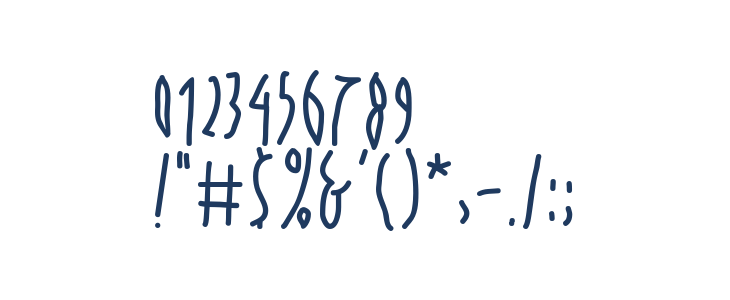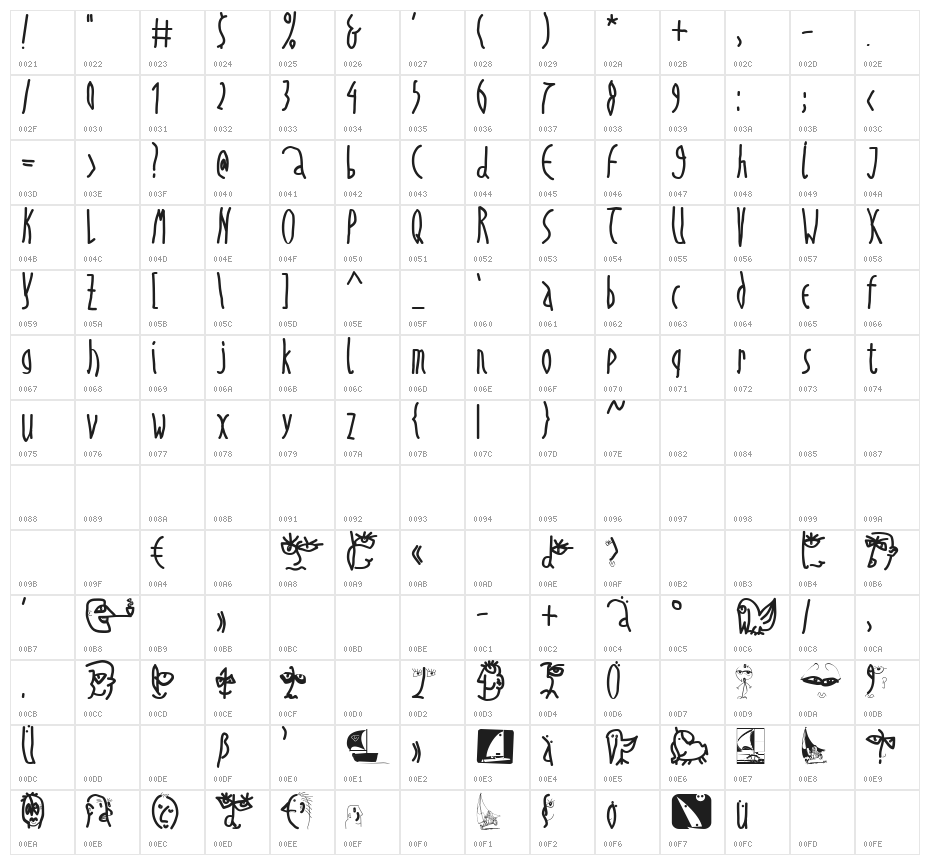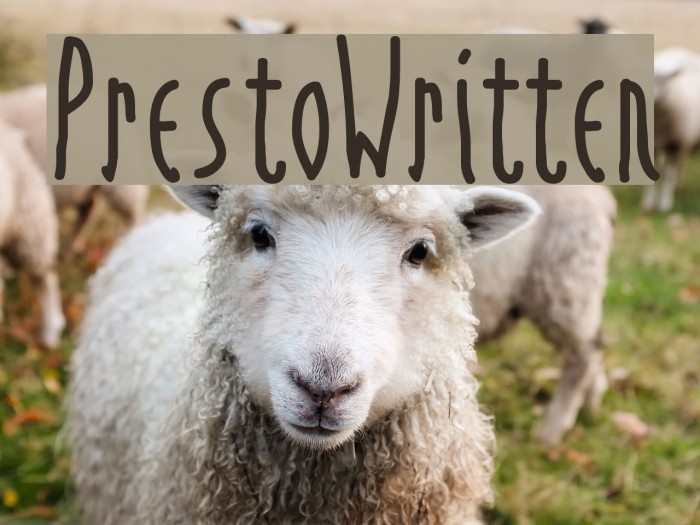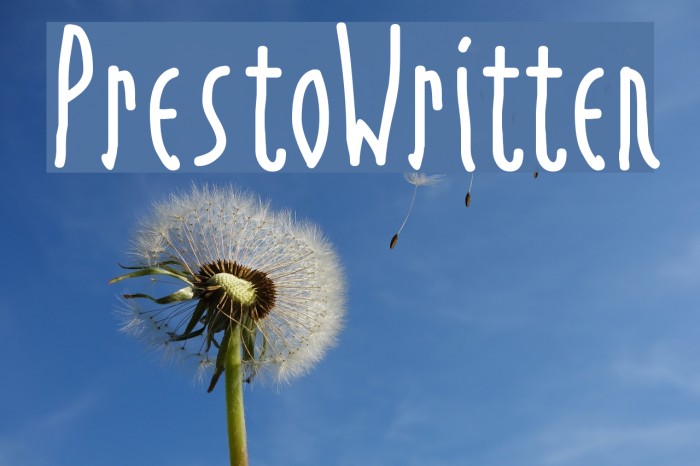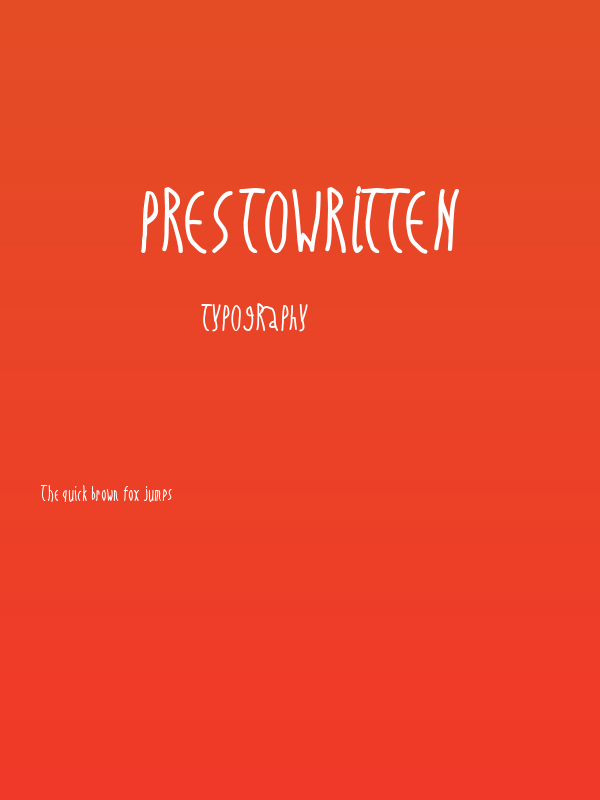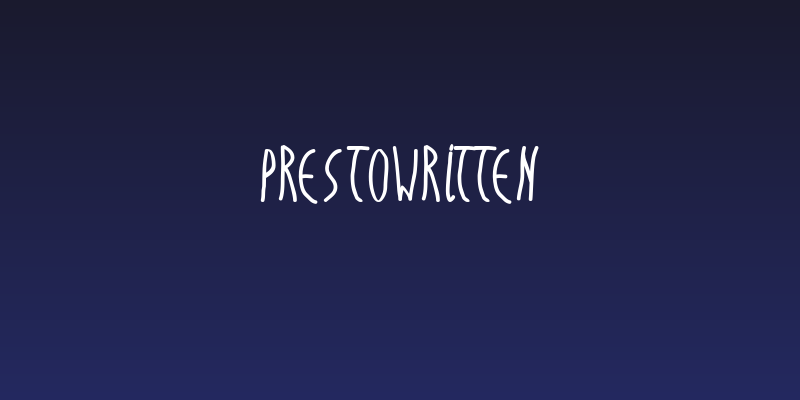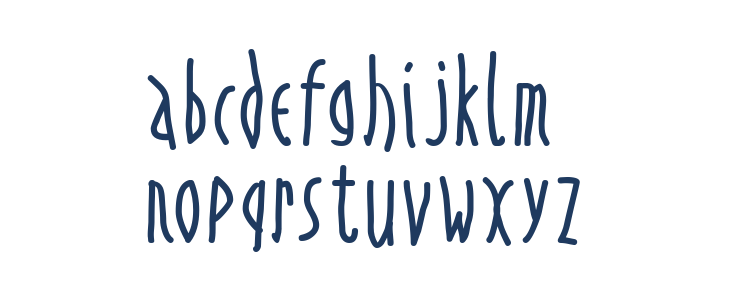
PrestoWritten Font
PrestoWritten Description
This font features a playful and whimsical handwritten style, characterized by its tall, narrow letters and uneven stroke widths. The characters have a casual, informal appearance, with a slight slant that adds to their dynamic feel. The uppercase and lowercase letters maintain a consistent height, creating a cohesive look across the alphabet. Numbers and special characters follow the same style, ensuring uniformity throughout. The font's unique personality makes it stand out, offering a creative touch to any design project.